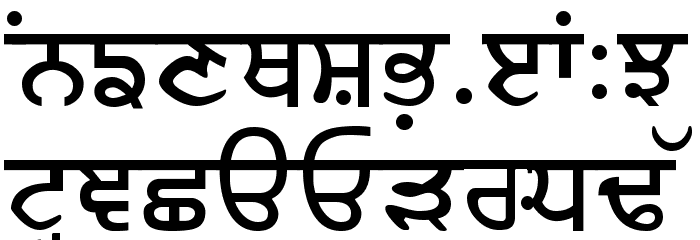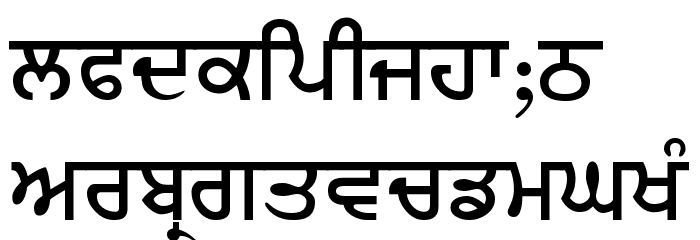
BJanmeja5A Font
This font features a bold and modern design with a strong presence. The characters are well-defined with a consistent stroke width, providing a clean and professional appearance. The numerals are clear and easily distinguishable, making them suitable for various applications. The special characters are uniquely styled, adding a touch of creativity to the overall design. The font maintains a balanced and harmonious look, making it versatile for different uses.
A bold, modern font with clear characters and unique special symbols.
- Proposed Projects: Ideal for branding, advertising, posters, and digital media where a strong visual impact is needed.